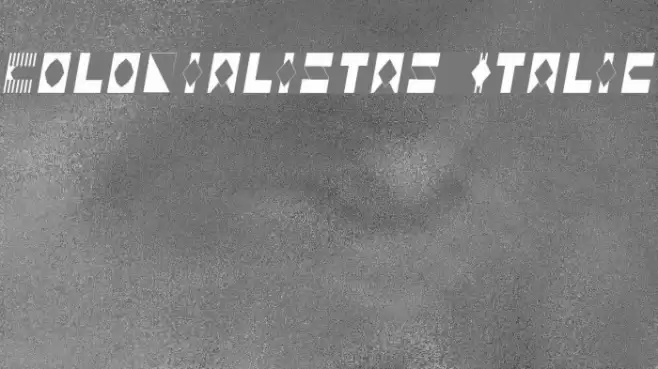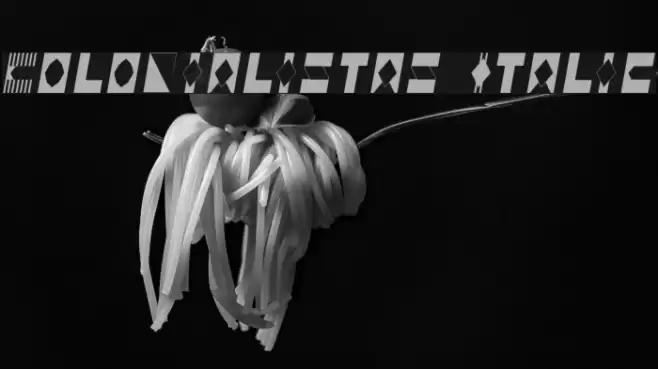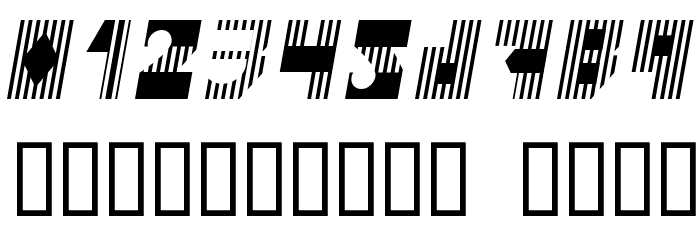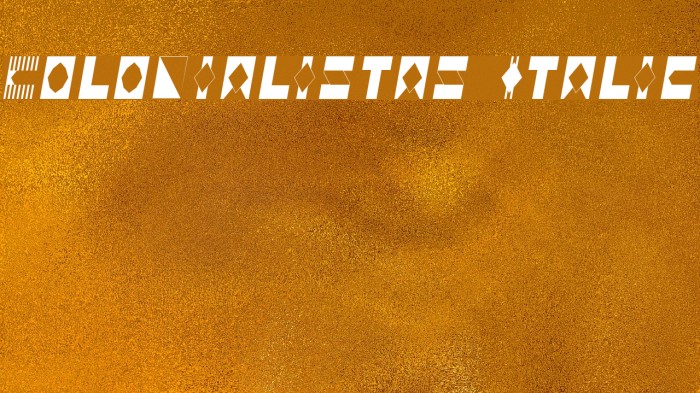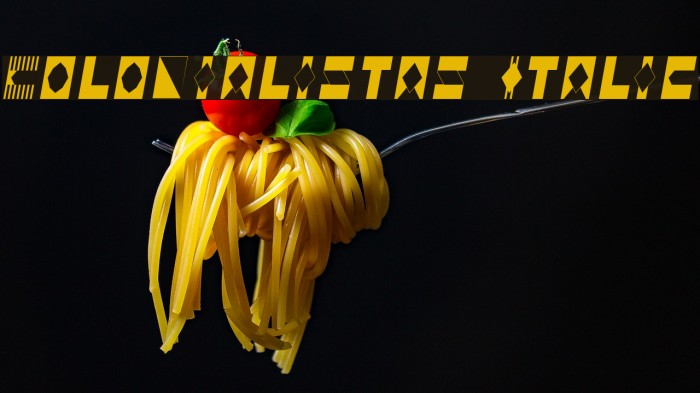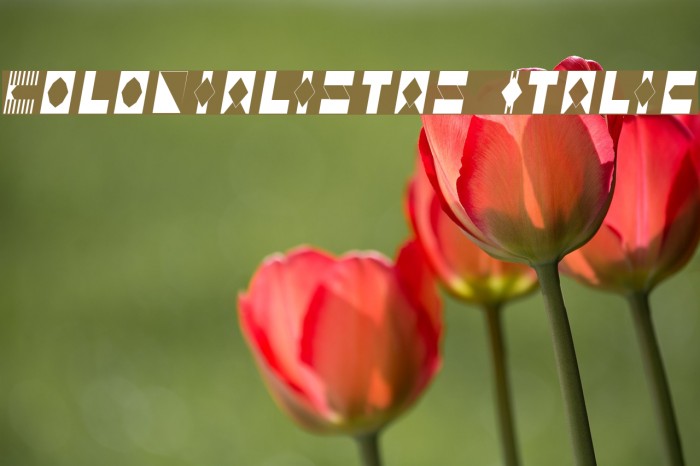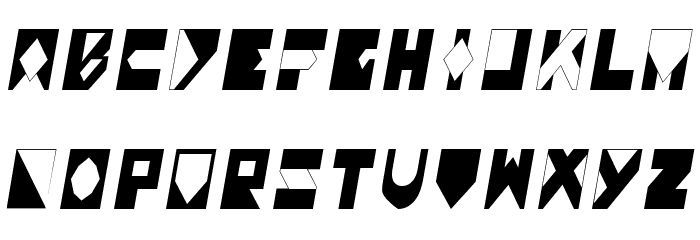
Colonialistas Italic Font
Colonialistas Italic Description
This font features a bold, geometric design with a unique pattern of diagonal lines and solid shapes. The uppercase letters are characterized by a striking combination of filled and unfilled spaces, creating a dynamic visual effect. The lowercase letters maintain this style, offering a cohesive look throughout the alphabet. Numbers follow the same design principles, ensuring consistency across all characters. The special characters are also designed with the same bold and geometric style, making them stand out. This font is ideal for projects that require a modern and edgy aesthetic.
A bold, geometric font with diagonal lines and solid shapes, offering a modern and edgy look from Decorative fonts.